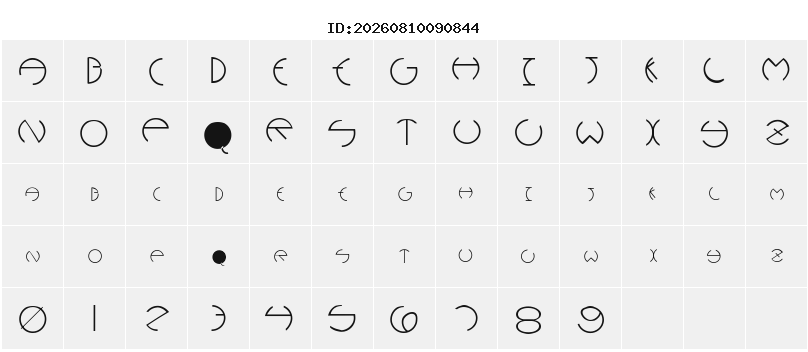
PCRounders Preview
• Font Name: PCRounders
• Full Font Name: PCRounders
About PCRounders.ttf
PCRounders.ttf is a modern, elegant sans-serif font designed for ultimate readability and visual harmony. Perfect for branding, headlines, web design, and print materials.